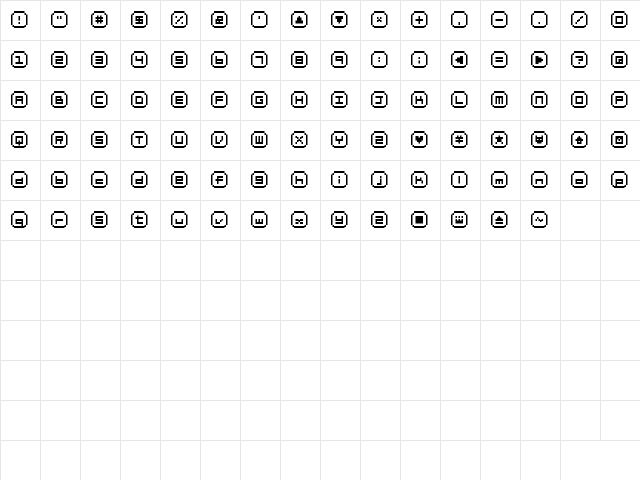
HM Othello White Regular
Design Context for HM Othello White Typeface
HM Othello White takes a measured approach to typography — its balanced proportions and neutral character make it a reliable workhorse for both digital and print work.